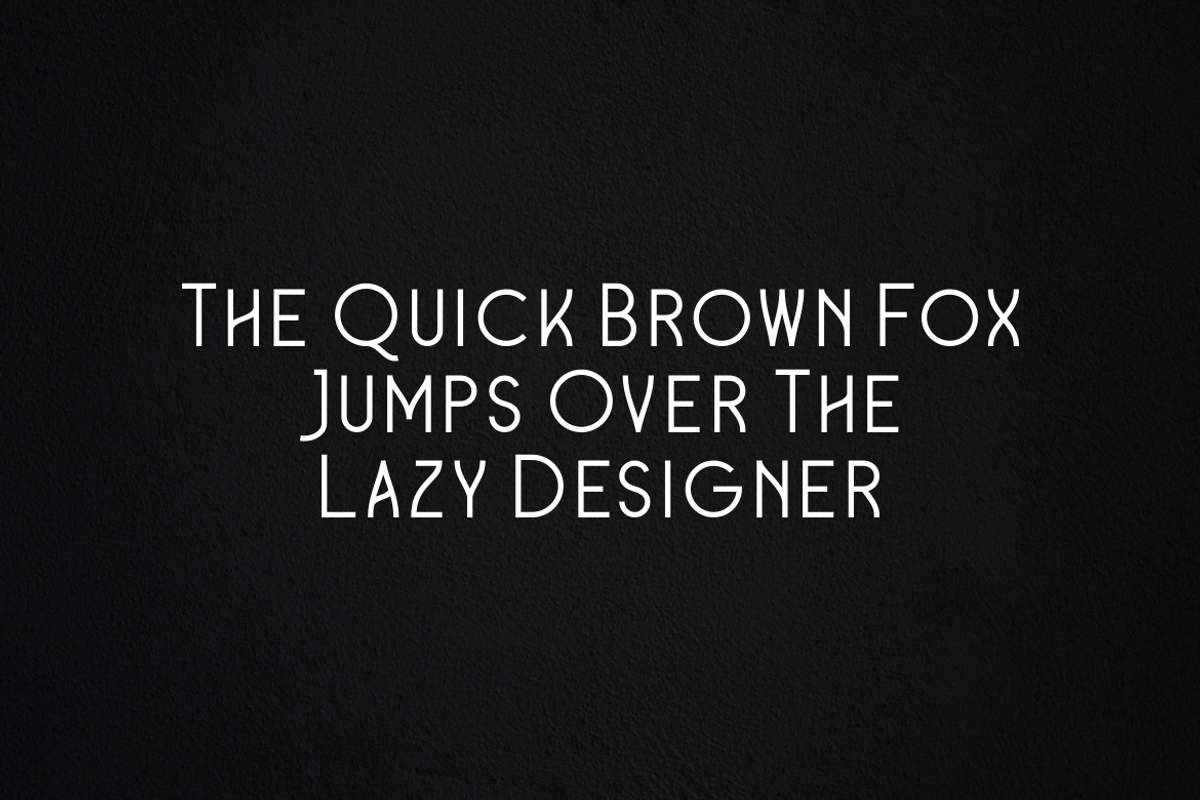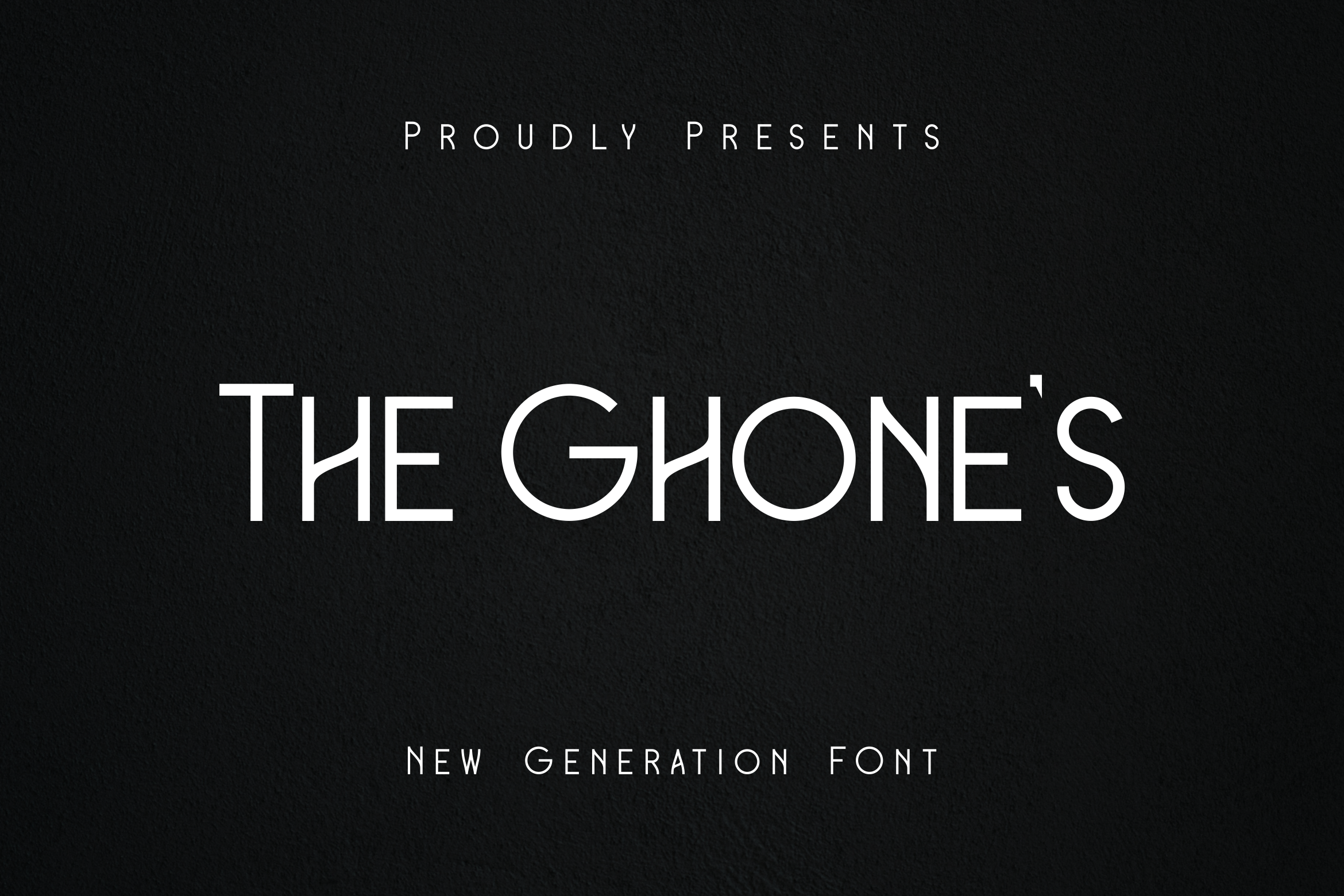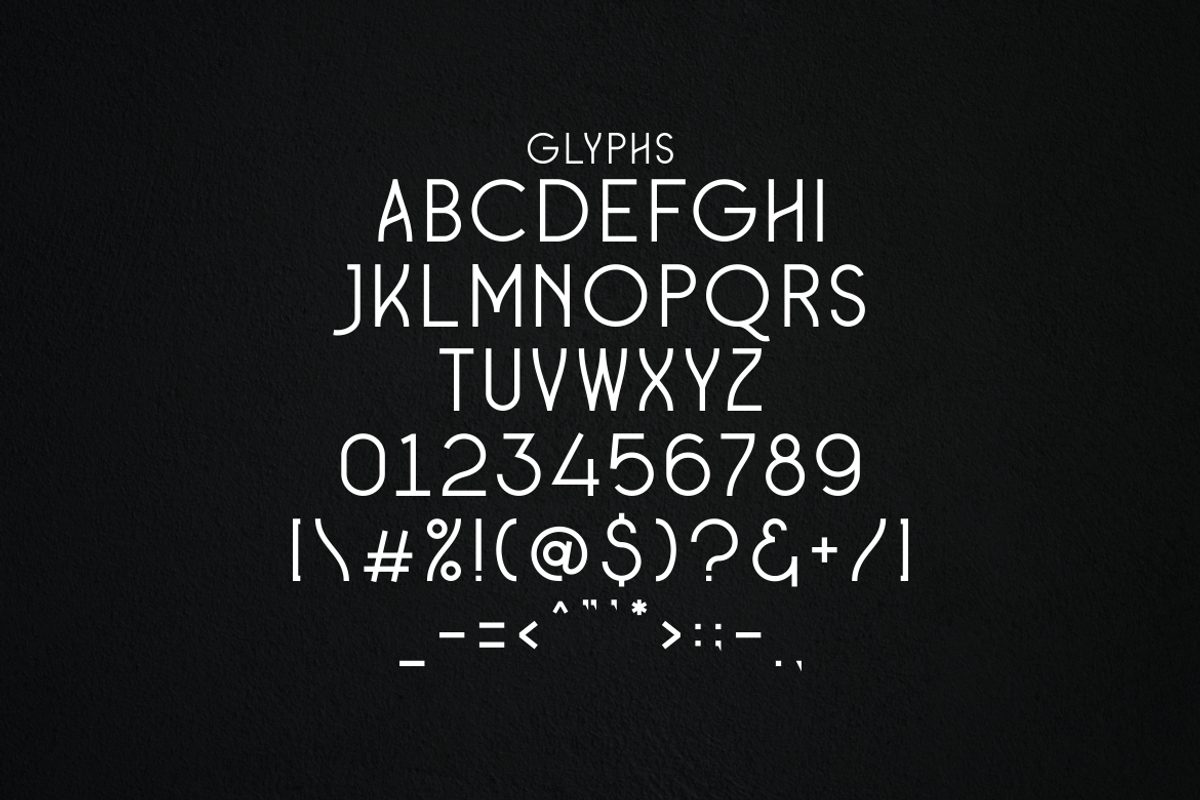
The Ghones Monoline Vintage Font
Introducing the next evolution in typography - a font that harmoniously fuses the clean, modern lines of Sans Serif with nostalgic, vintage vibes and the sleek simplicity of Monoline. This is not merely a typeface but an exquisite blend of historical and contemporary aesthetics, crafted to provide design versatility for any project. Experience how effortlessly this new generation font bridges the gap between past and present. Embrace the past, embrace the future, embrace elegance in simplicity.